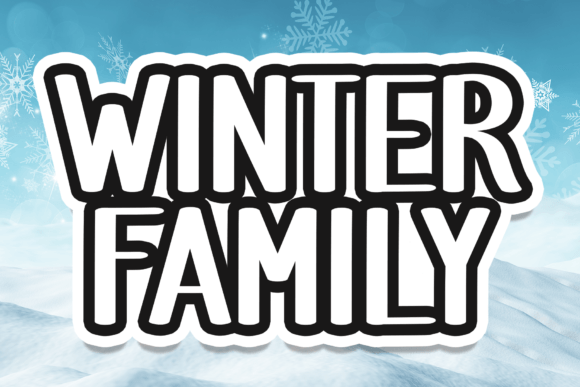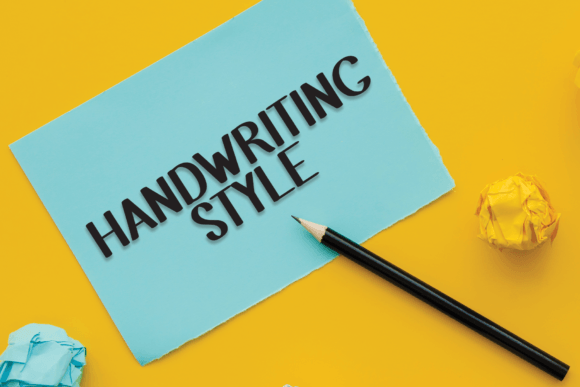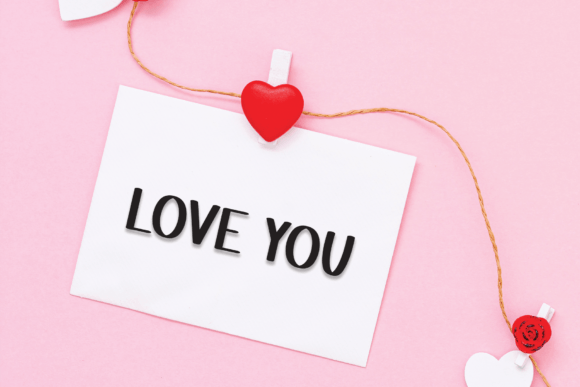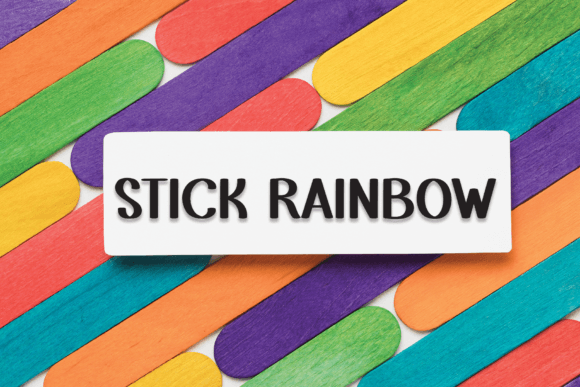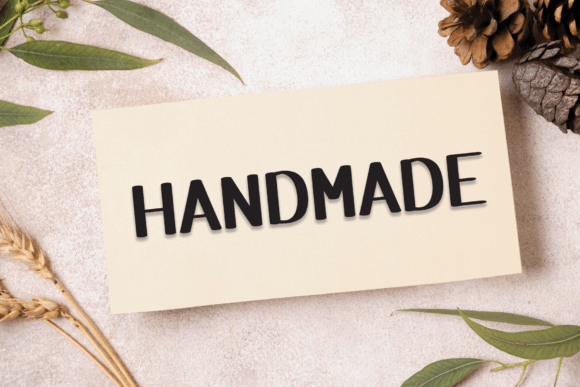
About Winter Family Font
Winter Family is a fun and friendly handwritten font. Whether you’re using it for crafts, digital design, presentations, or creating greeting cards, this font has the potential to become your favorite font, whatever the occasion!